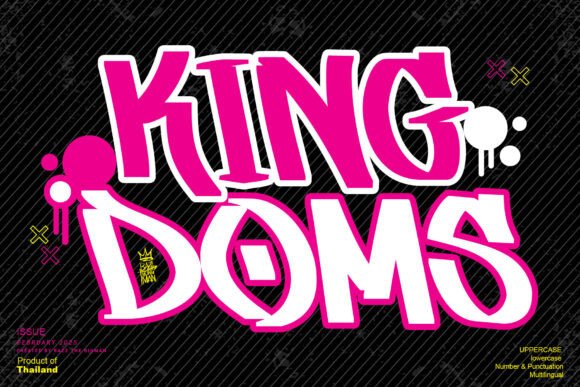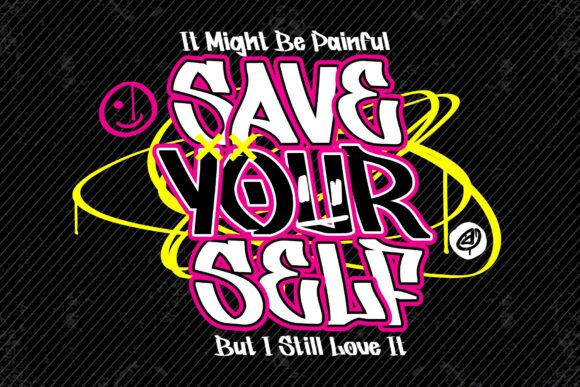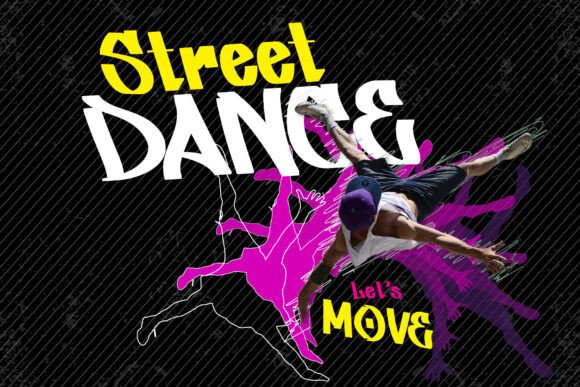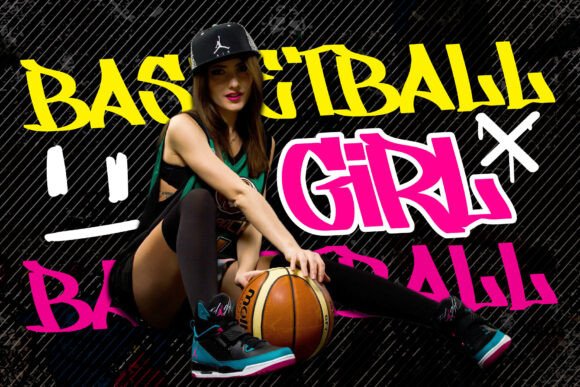
Kingdoms Font
About the Kingdoms Font
Let us introduce you to Kingdoms Font, where timeless design meets modern craftsmanship. Immerse yourself in the nostalgic allure of bygone eras and the edgy vibe of city life with Kindoms. This font encapsulates timeless allure and modern audacity, making it an ideal solution for projects that require a vintage touch or those inspired by graffiti art. Let Kindoms be the secret weapon in your design arsenal, lending character and distinction to your branding or artistic endeavors.
Kingdoms excels in headlines, logos, and short-form text within posters and packaging designs. Its strong character makes it unsuitable for body text or extended reading. The font’s inherent boldness prevents comfortable readability in UI contexts.
The font possesses a bold, rebellious personality, blending vintage charm with urban grit. It’s perfect for brands aiming for a strong, memorable image—think streetwear apparel, craft breweries, or independent music labels.
Pairing Kingdoms with a clean sans-serif like Montserrat for body copy provides excellent contrast and readability. For a more vintage feel, consider pairing it with a serif like Garamond. Alternatively, a geometric sans-serif such as Futura could create a striking modern juxtaposition.
Kingdoms Font Usage Examples
Kingdoms Font Example